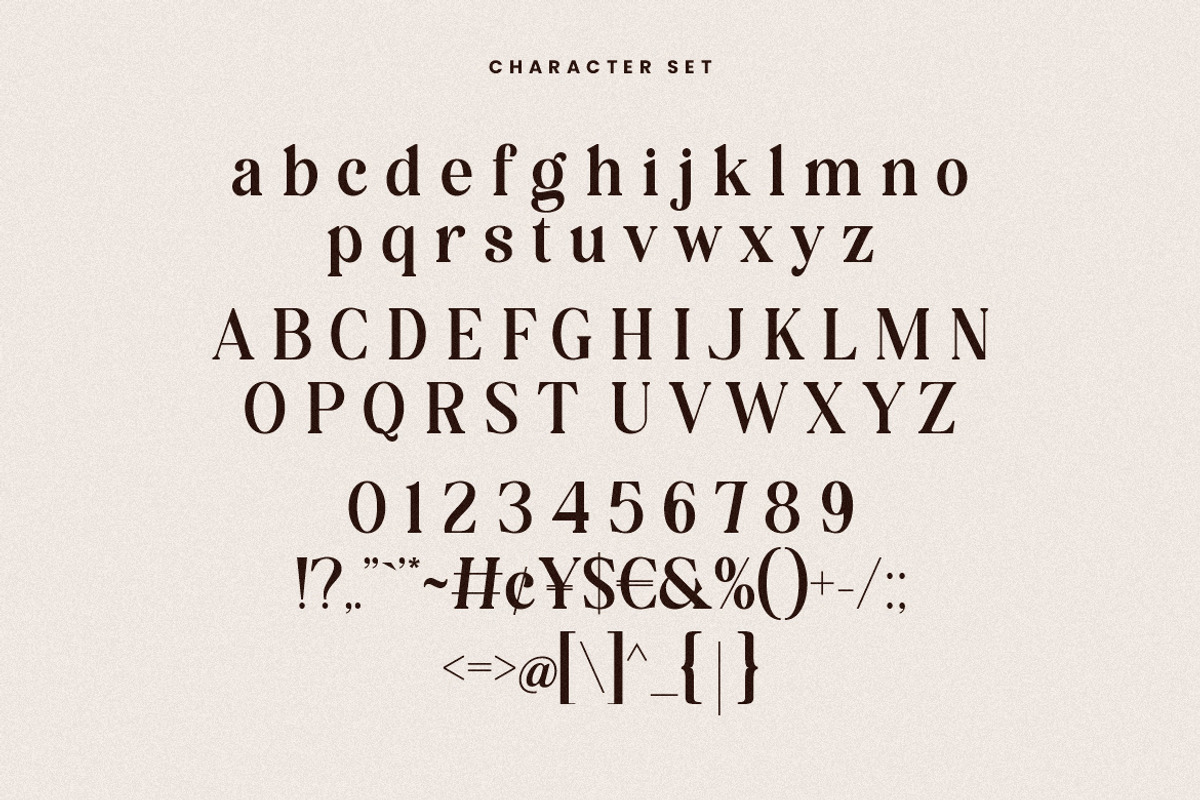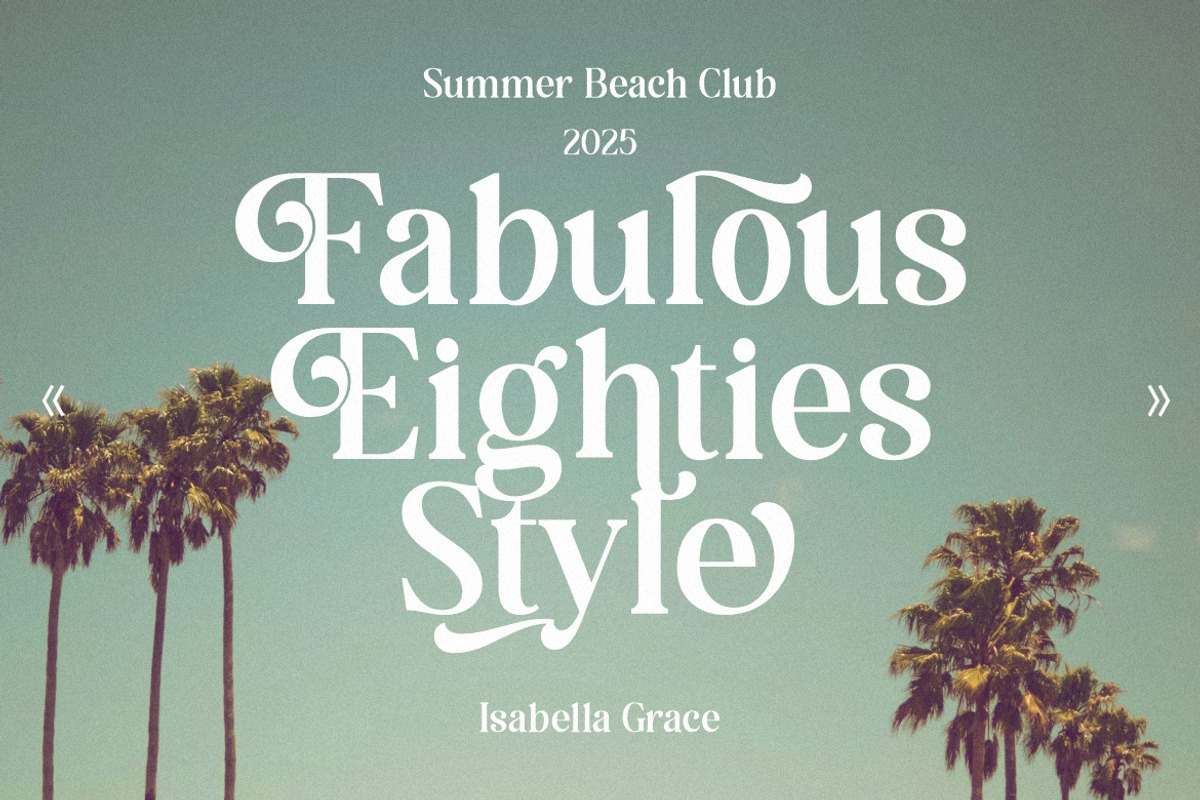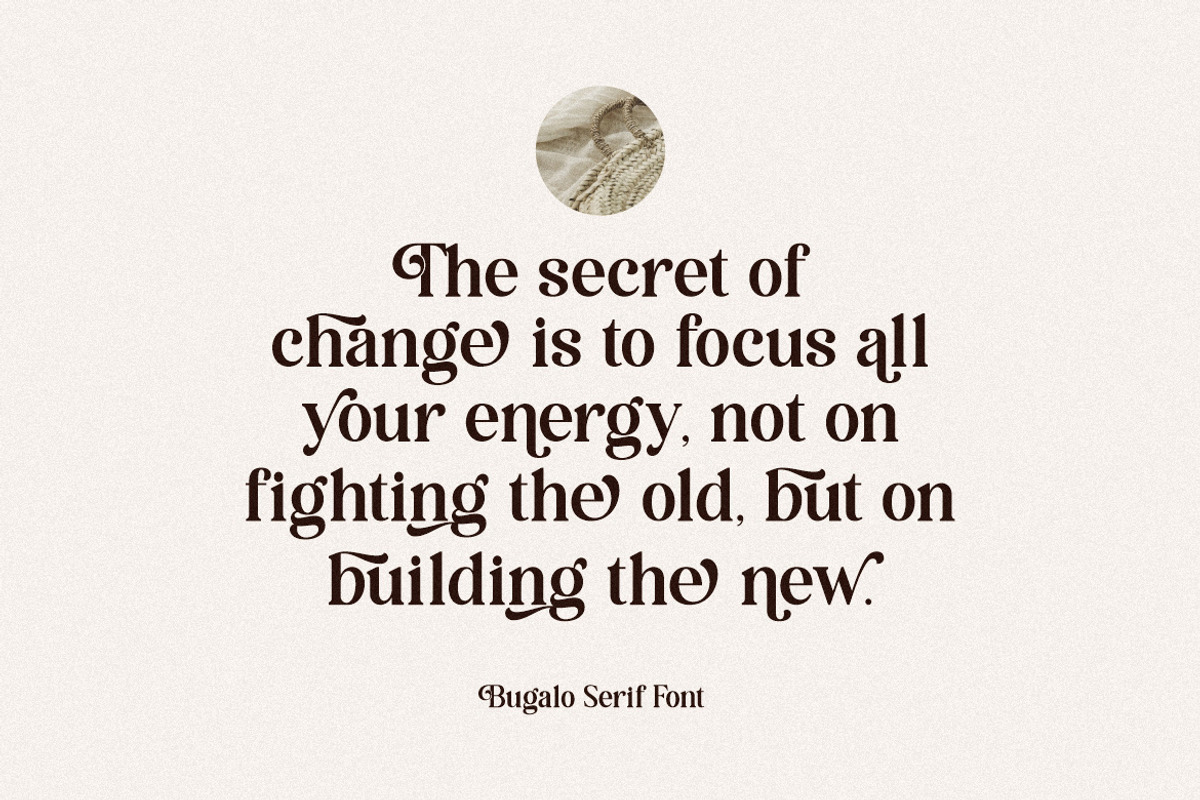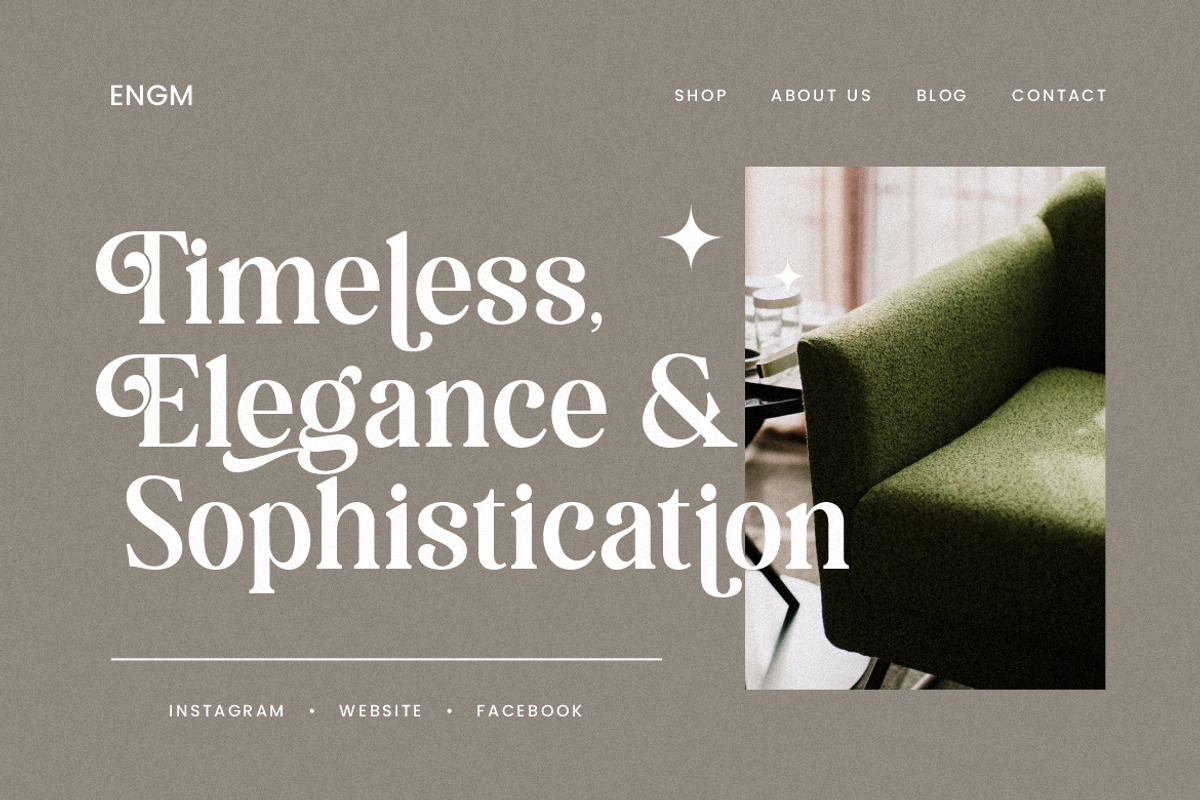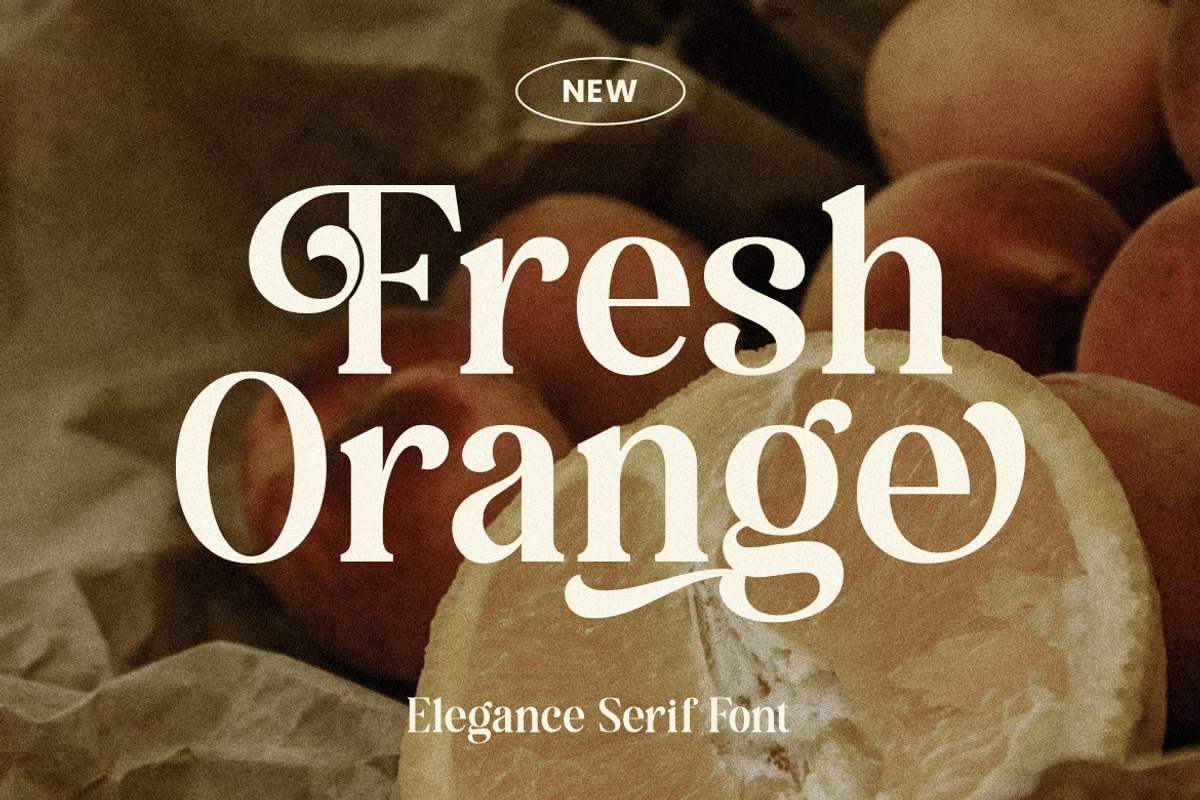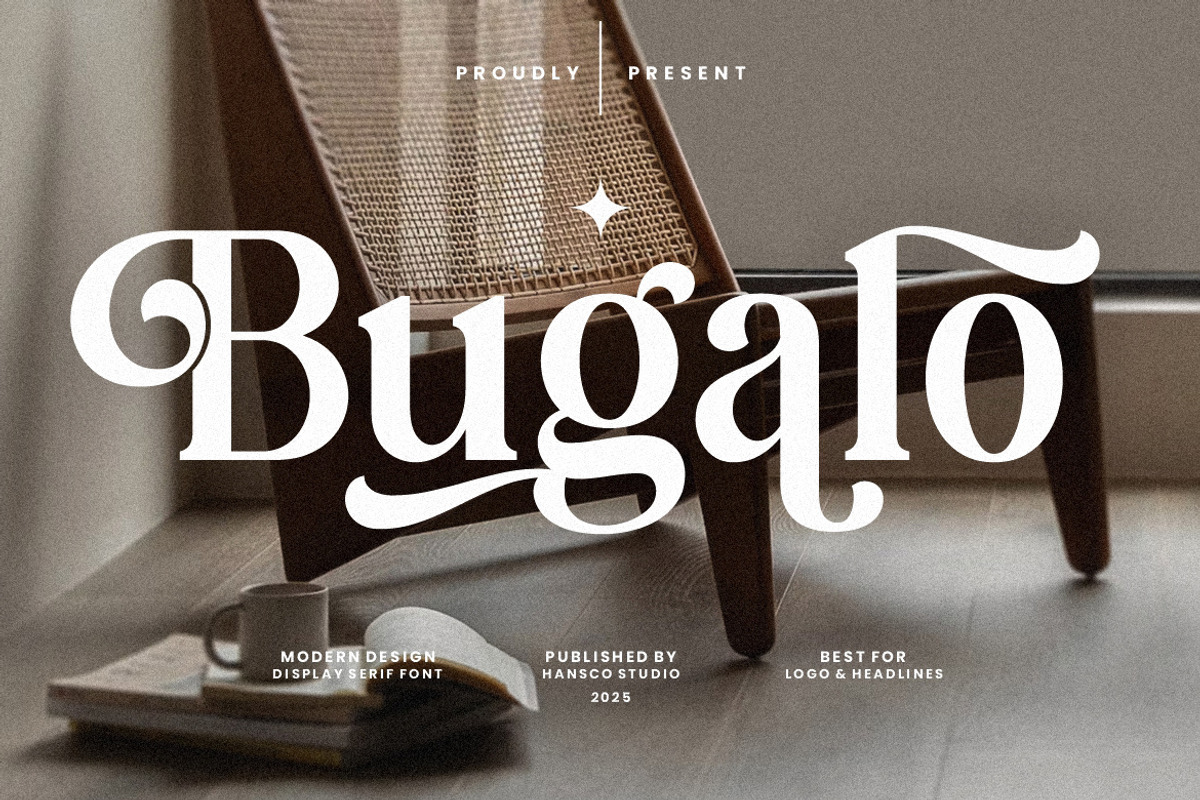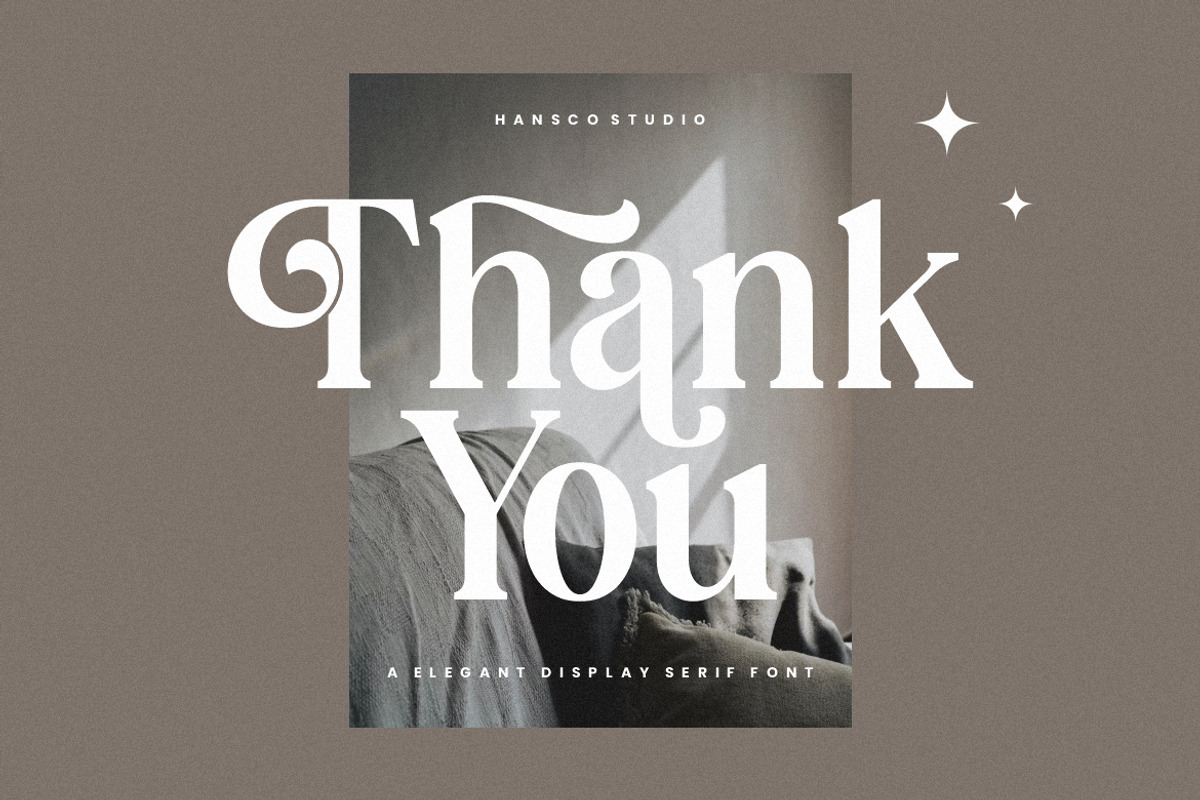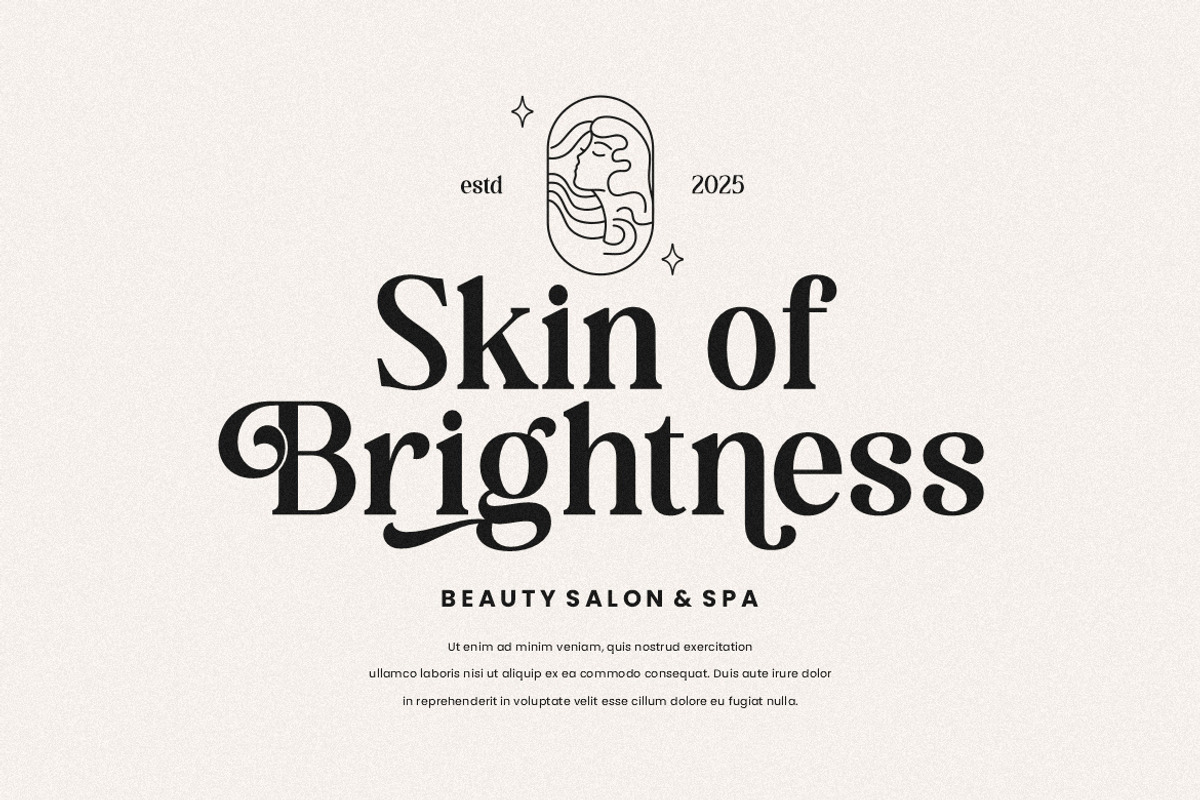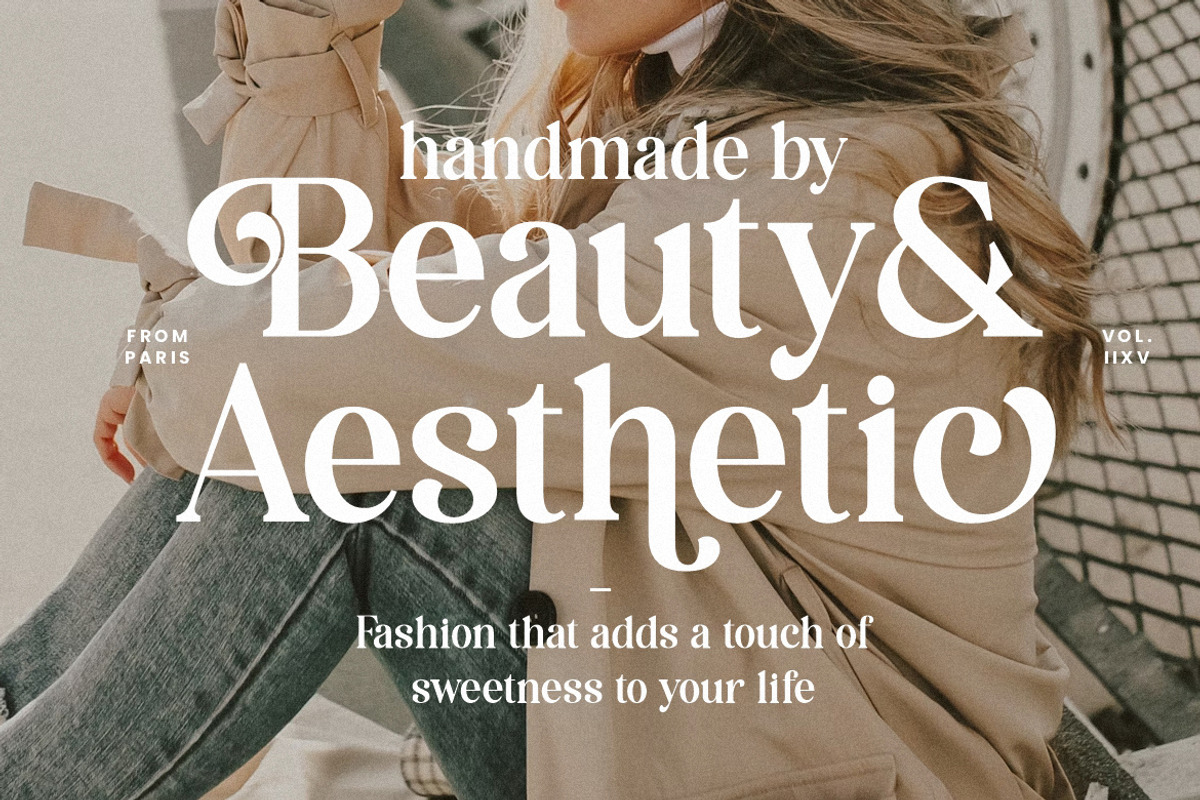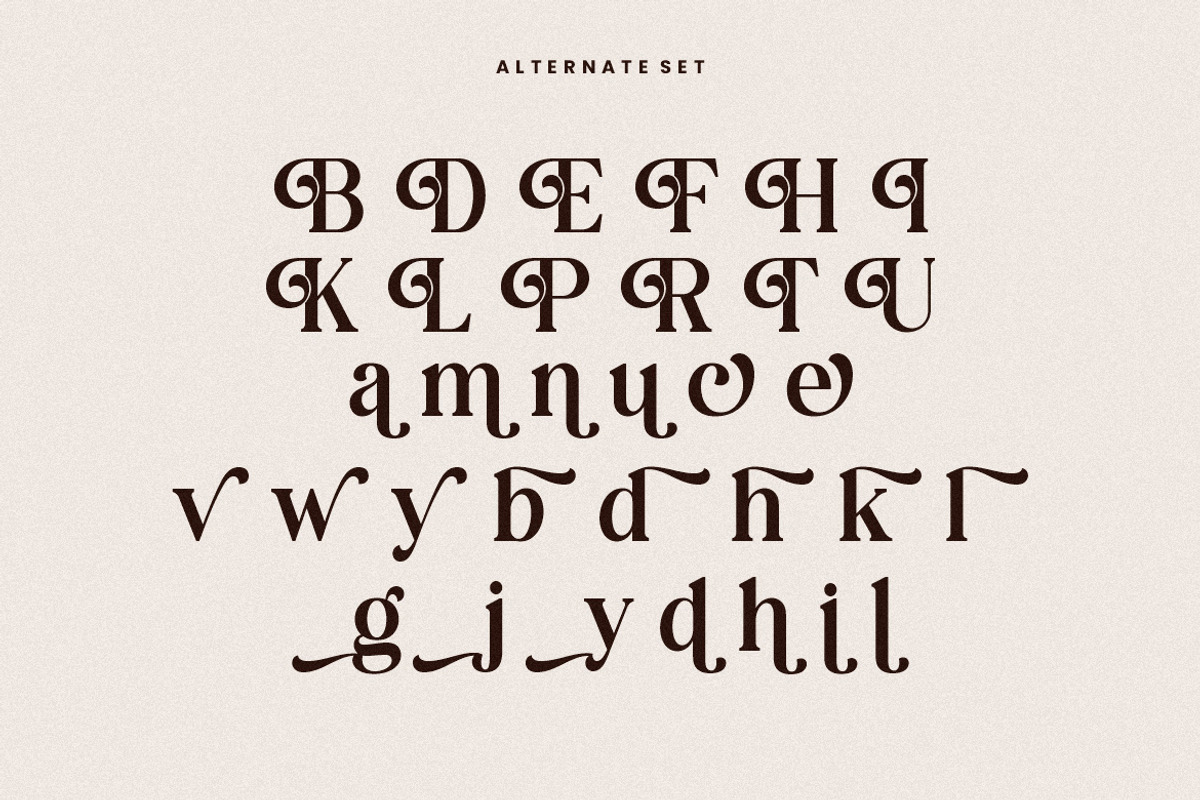
Bugalo Font Retro Serif
We are proud to present the retro casual with modern style Bugalo Font. This font is made by carrying the concept of a fun and chick serif with swash style in some characters, so it is friendly and suitable for application in any project like a logo or brand identity and packaging design projects. You can find alternative characters in this Bugalo Font. This font is perfect also for creating print templates like posters, branding, quotes, blog titles, fashion, invitations, greeting cards, business cards, clothing, stationery or anything else. Comes with a full uppercase, lowercase, numbers, punctuation and with extensive language support, it’s going to be a very usable addition to your project. Be a perfect professional in a minute and start creating with this font today!